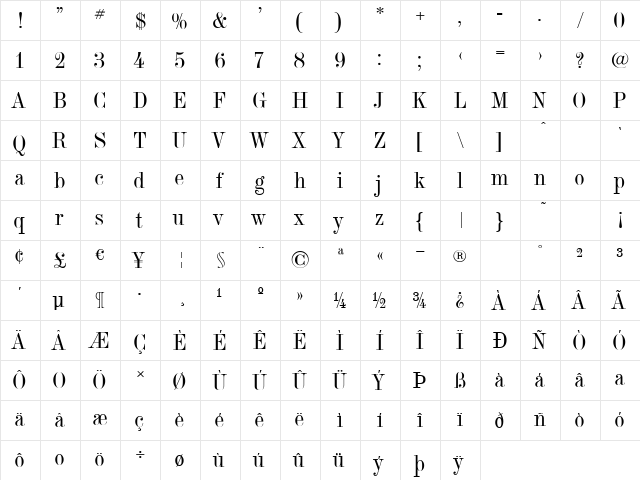
TorinoModern Regular
Design Context for TorinoModern Typeface
TorinoModern takes a measured approach to typography — its balanced proportions and neutral character make it a reliable workhorse for both digital and print work.